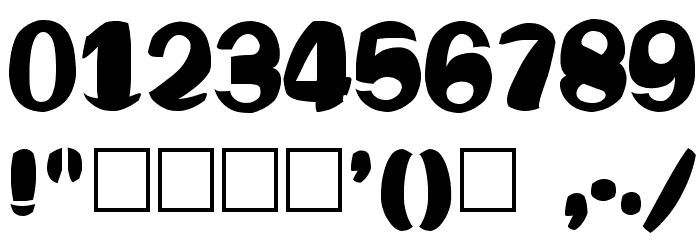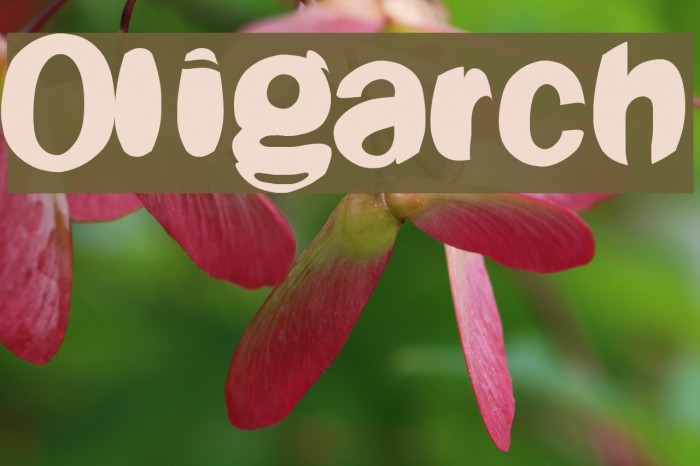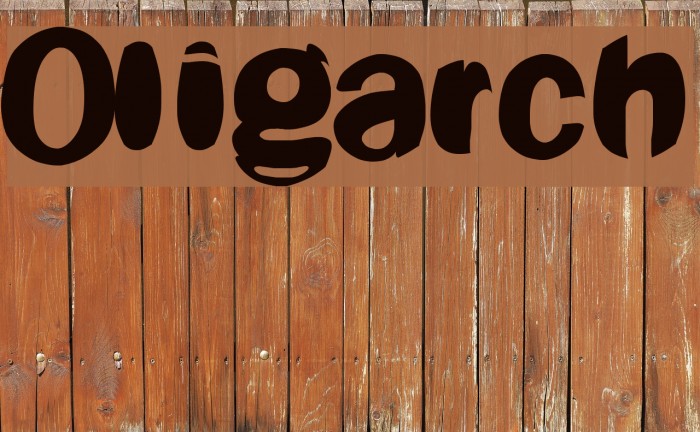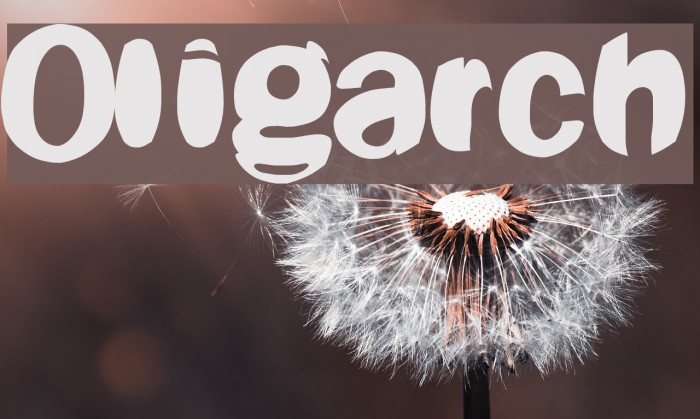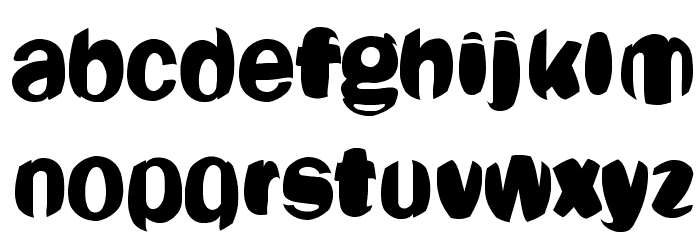
Oligarch Font
Oligarch Description
This font exhibits a bold and playful design with a strong presence. The characters are rounded and have a unique, almost whimsical appearance, with some letters featuring exaggerated curves and strokes. The uppercase and lowercase letters maintain a consistent style, while the numbers and special characters complement the overall aesthetic. The font's thick strokes and rounded edges give it a friendly and approachable feel, making it suitable for creative and informal applications.
| Overall Style | Playful, Whimsical |
| Proposed Projects | Ideal for children's books, playful branding, posters, and creative projects that require a fun and engaging typeface. |